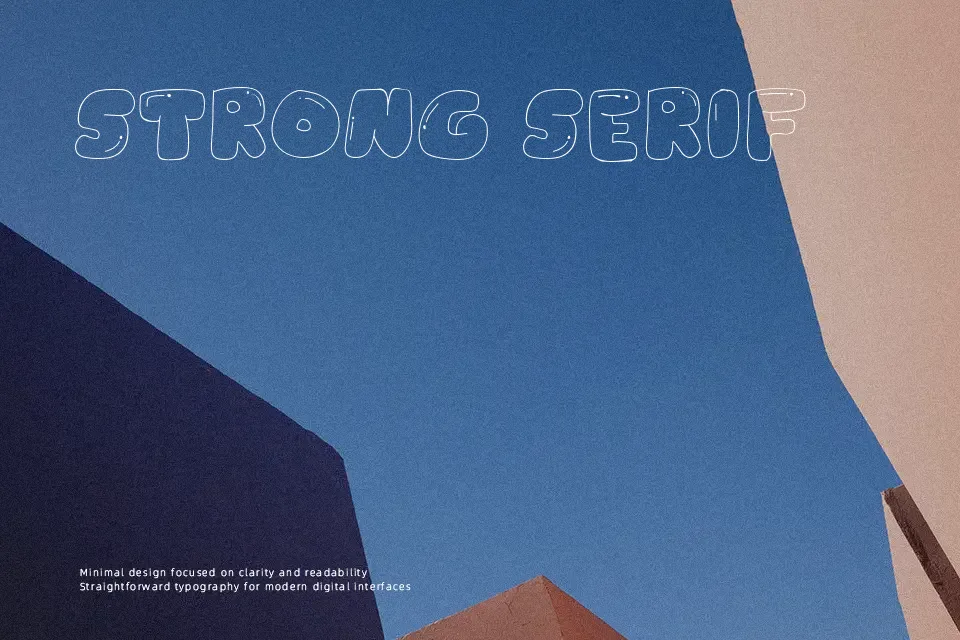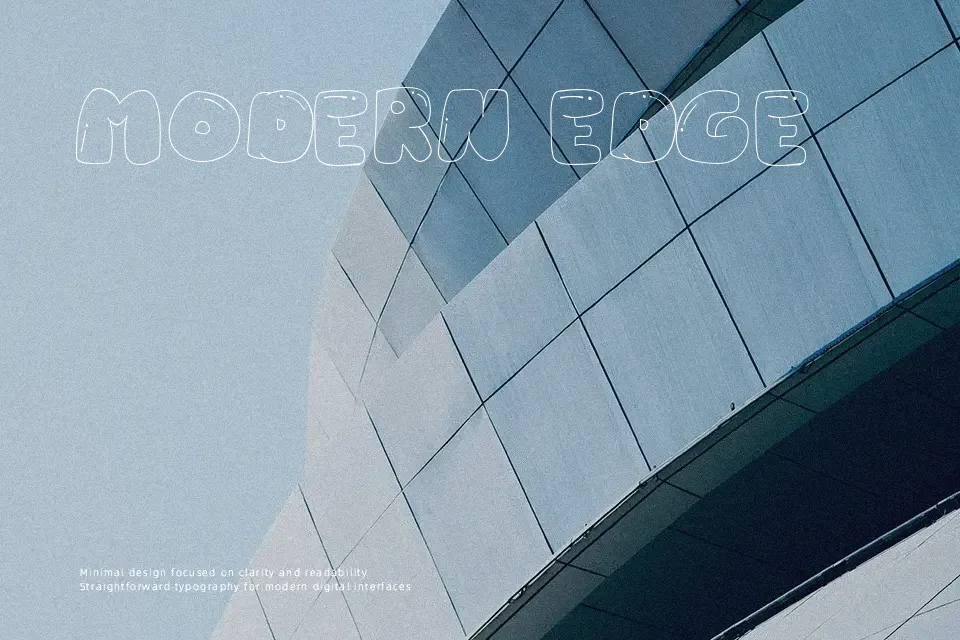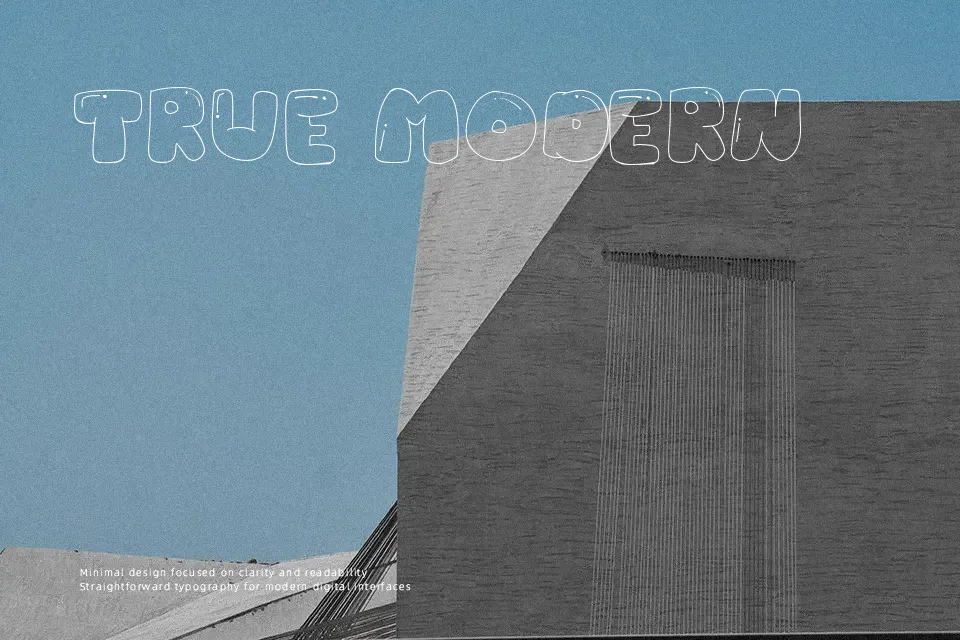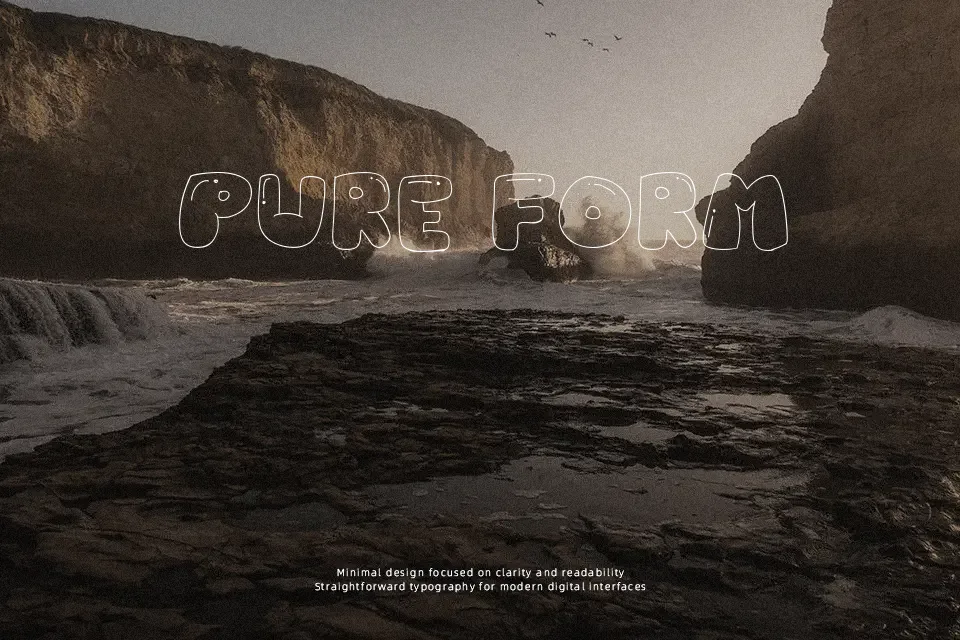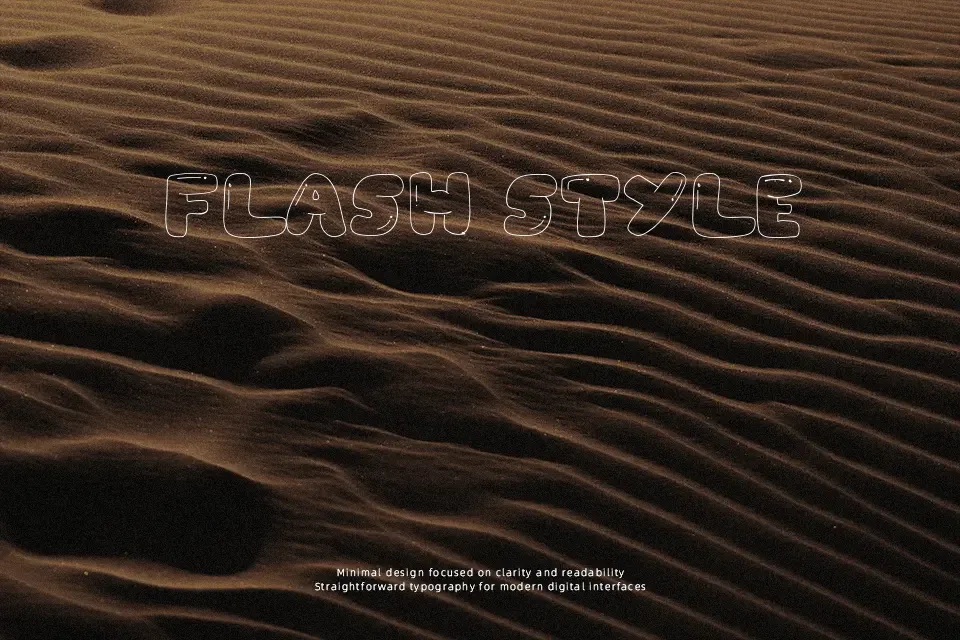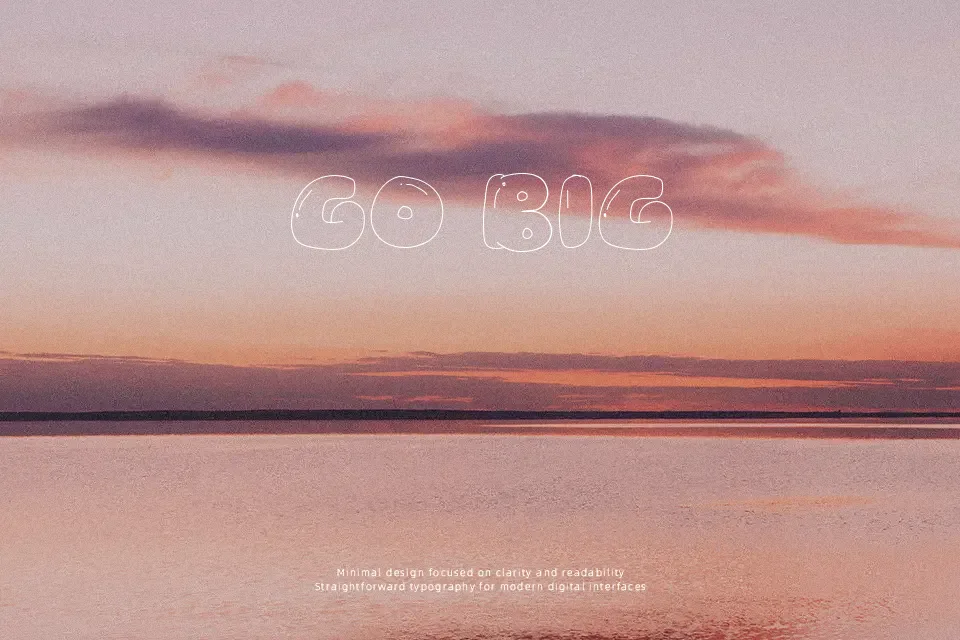
Playful Swollen Font
Playful Swollen uses thick, inflated strokes and rounded contours to create a cartoon display texture. The upper- and lowercase forms look deliberately soft and bouncy, with wide proportions that give short phrases an easygoing rhythm. Numerals and punctuation follow the same substantial treatment, which helps the set feel coherent in simple titles and labels. The letterforms remain clearest at headline scale, particularly when used with ample surrounding space. In longer copy, their swollen silhouettes slow scanning and make individual words compete for attention. It is a practical choice for a child-focused poster or playful package name, rather than a reading-intensive layout.
Best For: children’s party invitations,snack packaging,playroom posters,toy labels
Perfect for kids, logo, and packaging, with a bubble and cartoon style.